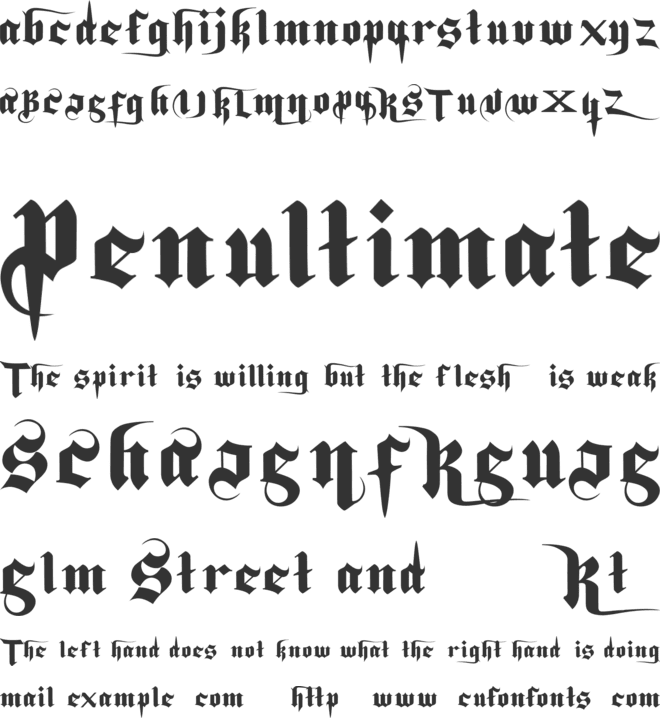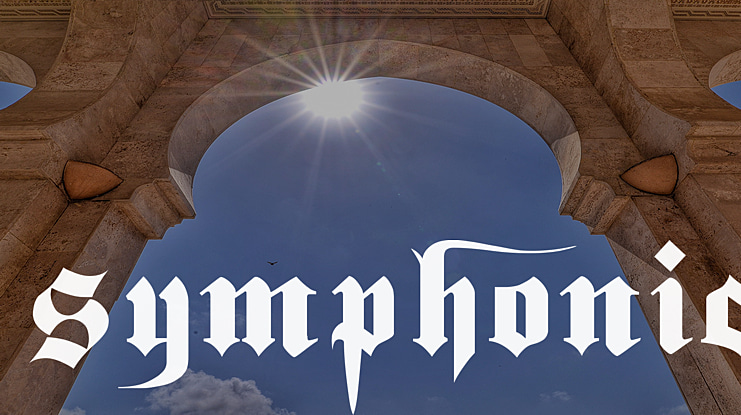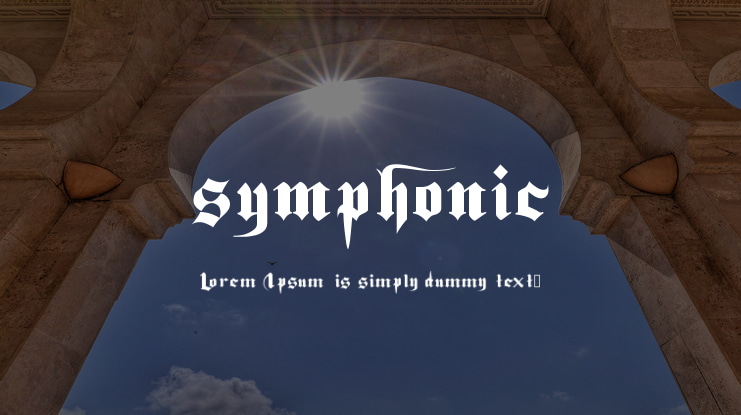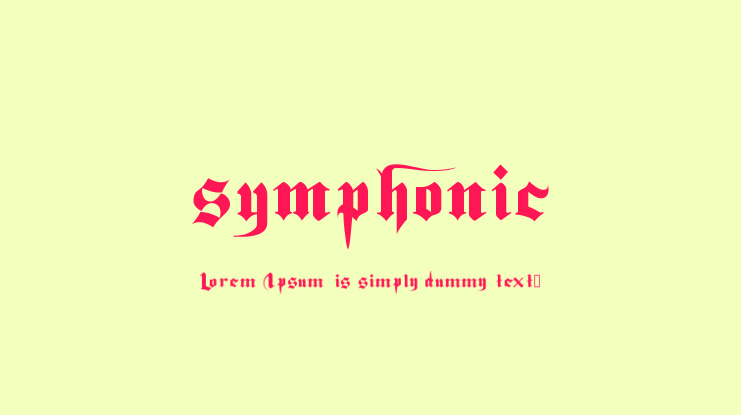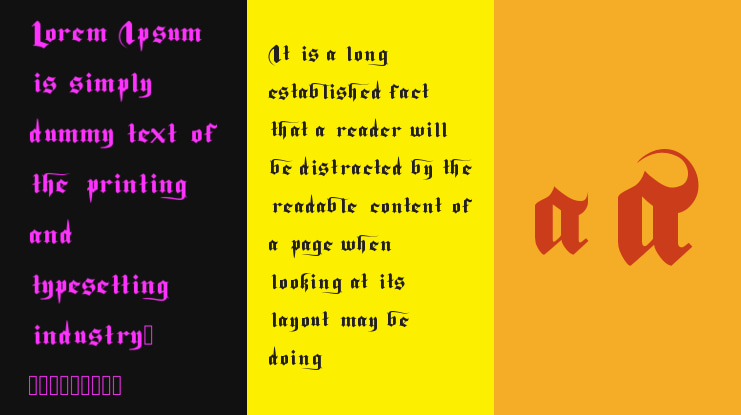
symphonic Font
This time I took Symphony X’s logo (one of my favorite bands) and tried to make a font out of it. I am completely mesmerized by their logo, it seems like a combination between modern gothic and blackletter, it wasn’t an easy job!